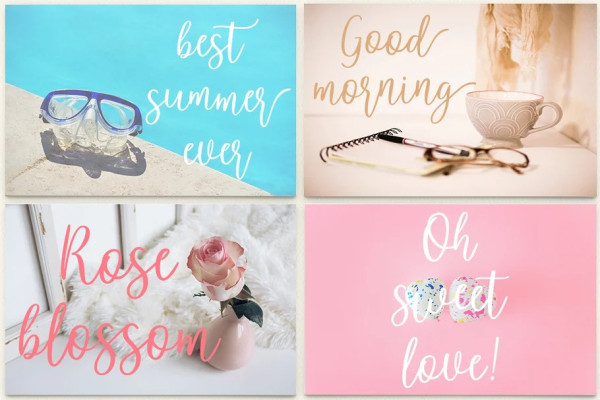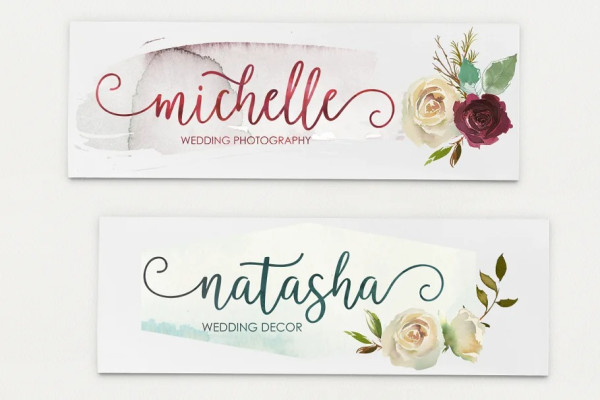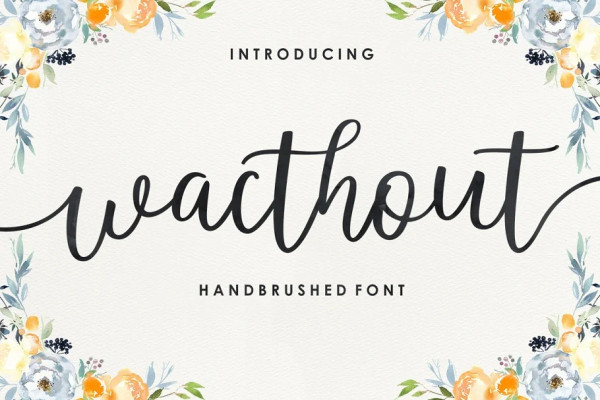
Wacthout Font
Wacthout Font is a new modern script font with an irregular baseline. Trendy and feminine style. Wacthout looks lovely on wedding invitations, thank you cards, quotes, greeting cards, logos, business cards and more. Perfect for using in ink or watercolour. Including initial and terminal letters, alternates and multiple language support.